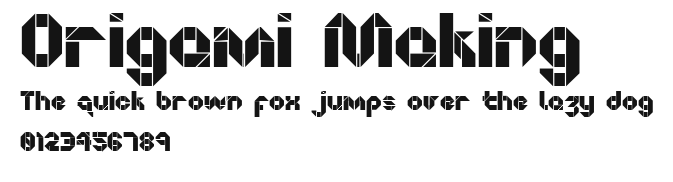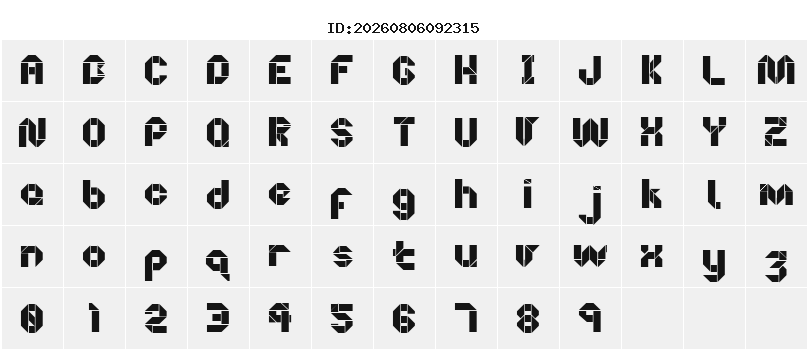
• Font Name: Origami Making
• Full Font Name: Origami Making
About Origami Making.ttf
Origami Making.ttf is a modern, elegant sans-serif font designed for ultimate readability and visual harmony. Perfect for branding, headlines, web design, and print materials.